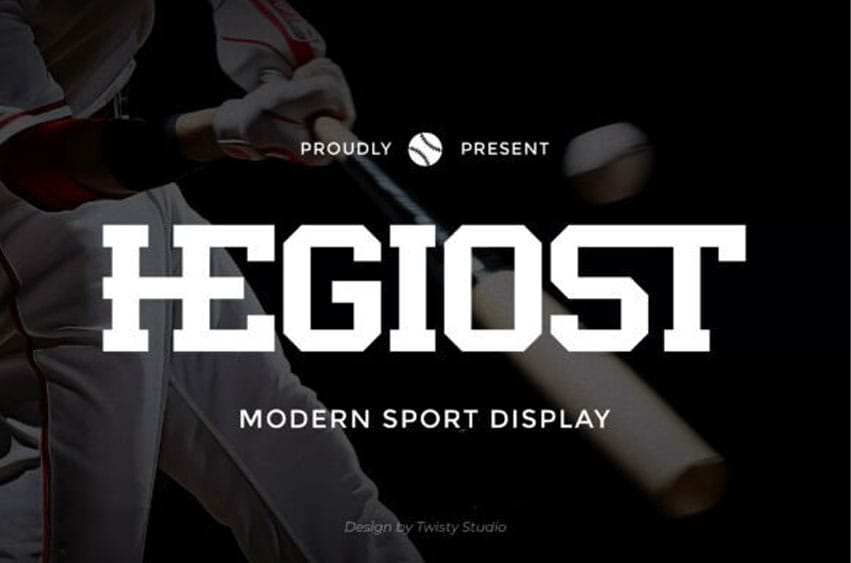
Hegiost Font is a modern sport display font designed to deliver bold energy and a sharp competitive edge. With its strong structure, angular details, and dynamic letterforms, Hegiost creates a powerful visual presence that feels fast, aggressive, and full of motion.
Crafted for high-impact use, Hegiost performs exceptionally well in headlines and large-scale typography where visibility and strength are essential. Its modern sporty style combines precision with clarity, ensuring your designs remain clean while still making a striking impression.